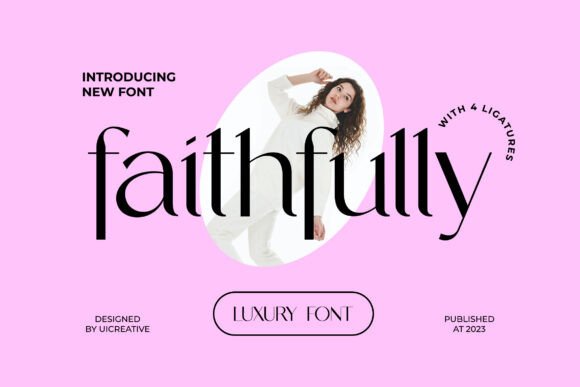
Faithfully Font: Elevate Your Design with a Touch of Elegance
In the world of typography, a font can make or break the aesthetic of a design project. For those seeking a modern, classy, and elegant look, the Faithfully Font and its modern serif counterpart, Faithfully Modern Serif Font, are excellent choices. These versatile fonts are perfect for a wide range of applications, from luxurious branding to stylish editorial designs.
Introducing Faithfully Font and Faithfully Modern Serif Font
The Faithfully Font family, including its modern serif variant, has been crafted to exude beauty, class, and style. Whether you’re working on a signature, stationery, logo, wedding materials, typography quotes, magazine or book covers, website headers, or branding projects, these fonts are designed to impress. Their adaptability and aesthetic appeal make them suitable for various design needs, ensuring your project stands out with a touch of sophistication.
Characteristics of Faithfully Font
Modern Display Font
Faithfully Font and its modern serif version are categorized as display fonts, meaning they are designed to capture attention and make a statement. Their modernity brings a fresh feel to any design, setting it apart from more traditional typefaces.
Elegant and Stylish
These fonts embody elegance and style, making them perfect for projects where a high-end look is desired. Their clean lines, balanced proportions, and sophisticated appearance contribute to their elegant feel.
Versatility in Design
One of the key benefits of Faithfully Font and Faithfully Modern Serif Font is their versatility. They can be used in a variety of contexts, from fashion branding to editorial design, and can convey both masculine and feminine qualities. This adaptability makes them a valuable addition to any designer’s font library.
Applications of Faithfully Font
Branding and Logo Design
For businesses looking to establish a strong brand identity, Faithfully Font offers a classy and memorable solution. Its unique yet approachable style can help a brand stand out in a crowded market.
Wedding and Event Design
The elegant nature of Faithfully Font makes it an excellent choice for wedding invitations, programs, and other event materials. It adds a touch of sophistication and romance to any celebration.
Typography Quotes and Magazine Covers
For designers working on typography quotes or magazine covers, Faithfully Font provides a stylish and impactful solution. Its modern look ensures that the text becomes a focal point, grabbing the reader’s attention.
Website Headers and Digital Design
In the digital realm, Faithfully Font can elevate website headers, adding a professional and stylish touch to any site. Its clarity and elegance ensure that it works well in digital formats, enhancing user experience.
The Masculine and Feminine Qualities of Faithfully Modern Serif Font
Faithfully Modern Serif Font, with its subtle serif details, manages to convey both masculine and feminine qualities, making it a unique tool in a designer’s arsenal. This duality allows designers to use the font across a range of projects without worrying about it feeling out of place.
Masculine Aspects
The serif elements of Faithfully Modern Serif Font add a level of strength and reliability, which can be seen as masculine qualities. These aspects make the font suitable for brands or projects that wish to convey a sense of solidity and trustworthiness.
Feminine Aspects
On the other hand, the elegance and grace of Faithfully Modern Serif Font also lend it a feminine touch. The font’s curves and lines can evoke a sense of softness and approachability, making it ideal for projects that aim to feel more personal and inviting.
Why Choose Faithfully Font?
Unique Aesthetic
Faithfully Font and Faithfully Modern Serif Font offer a unique aesthetic that can help any design stand out. Their blend of modernity and elegance provides a fresh yet sophisticated look.
Versatility
The versatility of these fonts means they can be applied across a wide range of projects, from editorial design to branding, without losing their impact or elegance.
Legibility
Despite their stylized appearance, Faithfully Font and its modern serif counterpart maintain high legibility, ensuring that messages are conveyed clearly and effectively.
Faithfully Font and Faithfully Modern Serif Font are powerful tools for designers seeking to add a touch of elegance and modernity to their projects. With their versatile nature, aesthetic appeal, and the ability to convey both masculine and feminine qualities, these fonts are sure to enhance any design. Whether you’re working on branding, editorial design, or any other project, incorporating Faithfully Font into your design can elevate your work to new heights of style and sophistication.